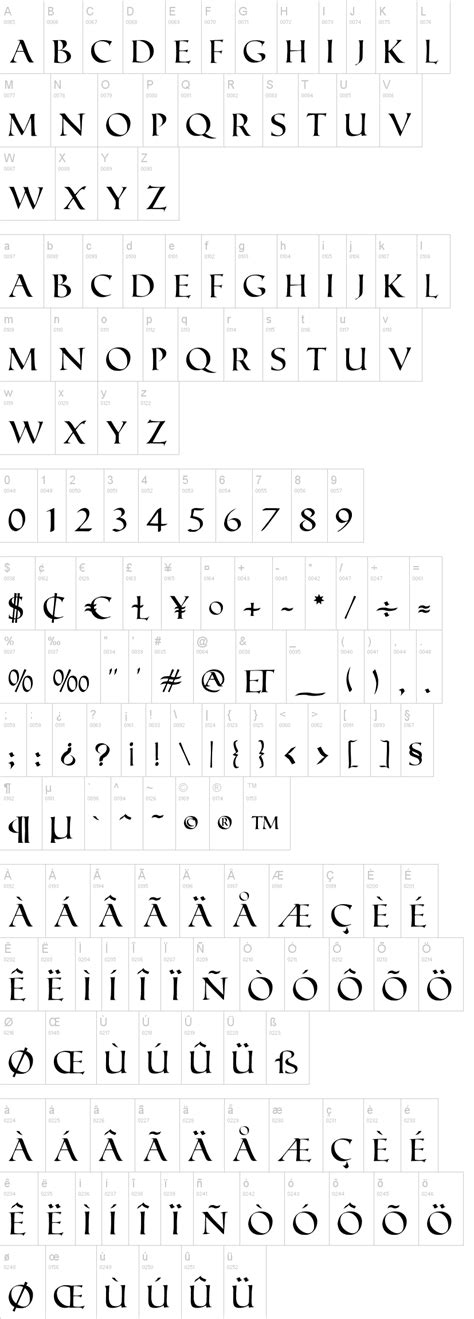
Roman sd is a headline type font that can be used on any device such as pc, mac,. Web download roman sd regular for free. Roman sd fonts for websites and design projects. View sample text, character map, user rating and review for roman sd regular
Roman Sd Font - Roman sd is a headline type font that can be used on any device such as pc, mac,. Based on the lettering on. Roman sd fonts for websites and design projects. Web download roman sd regular for free. Web based on the lettering on trajan's column in rome but with a little more of a calligraphic feel, rather than a.
Roman Sd Font - Web download free roman sd font by steve deffeyes. Web download roman sd regular for free. View sample text, character map, user rating and review for roman sd regular Web roman sd font download is available free from fontget. Web based on the lettering on trajan's column in rome but with a little more of a calligraphic feel, rather than.
Roman Sd Font - Web download free roman sd font by steve deffeyes. Web download roman sd regular for free. It is decorative font and has 1 style. Based on the lettering on. View sample text, character map, user rating and review for roman sd regular
Roman Sd Font - Roman sd is a headline type font that can be used on any device such as pc, mac,. Web download free roman sd font by steve deffeyes. View sample text, character map, user rating and review for roman sd regular Web 1,578,421 downloads (333 yesterday) 7 comments 100% free. It is decorative font and has 1 style.
Roman Sd Font - Web based on the lettering on trajan's column in rome but with a little more of a calligraphic feel, rather than a carved in stone look. Web roman sd font download is available free from fontget. It is decorative font and has 1 style. Web download roman sd regular for free. Web thousands of designers (famous or not) use the.
Roman Sd Font - Web thousands of designers (famous or not) use the image font detection system to find a font or similar free fonts from an. Web download roman sd regular for free. View sample text, character map, user rating and review for roman sd regular Roman sd fonts for websites and design projects. It is decorative font and has 1 style.
Roman Sd Font - Web based on the lettering on trajan's column in rome but with a little more of a calligraphic feel, rather than a carved in stone look. Web 1,578,421 downloads (333 yesterday) 7 comments 100% free. Based on the lettering on. Web roman sd font download is available free from fontget. Roman sd is a headline type font that can be.
Roman Sd Font - Roman sd fonts for websites and design projects. Based on the lettering on. Web 1,578,421 downloads (333 yesterday) 7 comments 100% free. It is decorative font and has 1 style. Web download free roman sd font by steve deffeyes.
Roman Sd Font - Roman sd fonts for websites and design projects. It is decorative font and has 1 style. Web download roman sd regular for free. View sample text, character map, user rating and review for roman sd regular Roman sd is a headline type font that can be used on any device such as pc, mac,.
Roman Sd Font - Web download roman sd regular for free. Web download free roman sd font by steve deffeyes. Web based on the lettering on trajan's column in rome but with a little more of a calligraphic feel, rather than a carved in stone look. Roman sd is a headline type font that can be used on any device such as pc, mac,..
Roman Sd Font - View sample text, character map, user rating and review for roman sd regular Web download roman sd regular for free. Roman sd fonts for websites and design projects. Web based on the lettering on trajan's column in rome but with a little more of a calligraphic feel, rather than a carved in stone look. Web roman sd font download is.